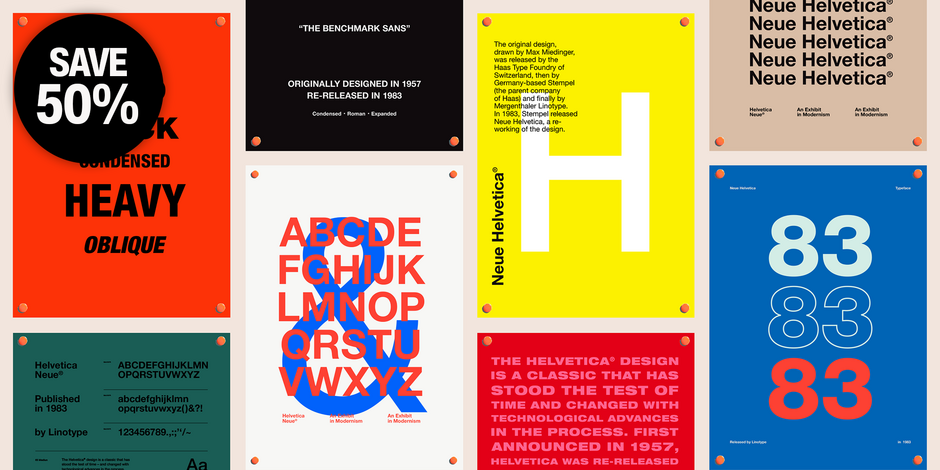
My direct ancestors date back over 120 years. My nearest sibling was released 65 years ago, and was only available in two weights: Roman and Bold. Italics weren’t added until four years later. I’ve been accused of being without character, neutral and so ubiquitous, as to be virtually invisible. And yet, I am a star. I have enduring popularity. I made the quantum leap from machine set metal type to the first digital image processors. Forty years ago, I was updated and improved. My family was rebuilt within a modern system of designs: 60 typefaces in all, plus suites of Arabic, Armenian, Cyrillic, e-Text, Georgian, Greek, Rounded, Thai and “World” fonts. Who am I?
Neue Helvetica® by Linotype
Neue Helvetica Font Family was designed by Max Miedinger, Linotype Design Studio, and published by Linotype. Neue Helvetica contains 59 styles and family package options. Currently #1 in Best Sellers.
Neue Helvetica® is a melding of aesthetic and technical refinements that result in superior design proportions, improved legibility and an expanded range of uses beyond the original Helvetica typefaces
Neue Helvetica World fonts enable the setting of pan-European languages, in addition to Arabic, Armenian, Cyrillic, Georgian, Greek, Hebrew, Thai and Vietnamese. The Cyrillic fonts include full support of the Unicode block, including characters for Bulgarian, Mazedonian, Serbian and Ukrainian.